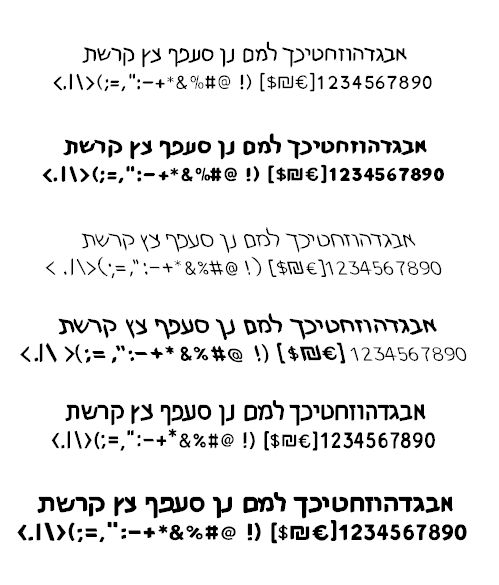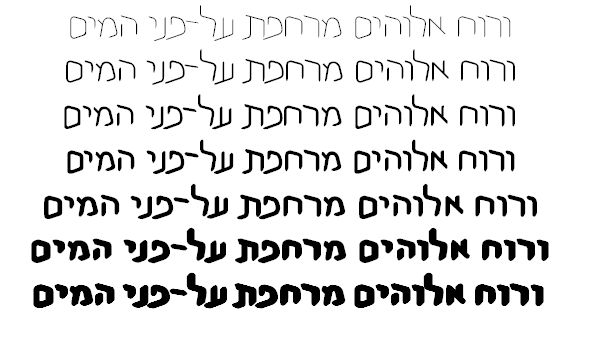
Release v2.0 of the Hebrew Font Shuneet is now available from my web site. This free font features Unicode characters, True Type glyphs and OpenType layout. Version 2.0 contains three styles named Classic, Oblique and Square each in regular and bold weights as shown below.
A new feature is that the Classic style now comes in seven weights as shown below.
All of these fonts have a matching Latin character set which has a similar style and weight to the Hebrew but is designed to be a little less dominant on the page.
I’m happy to see all these fonts coming together as a family after years of work!